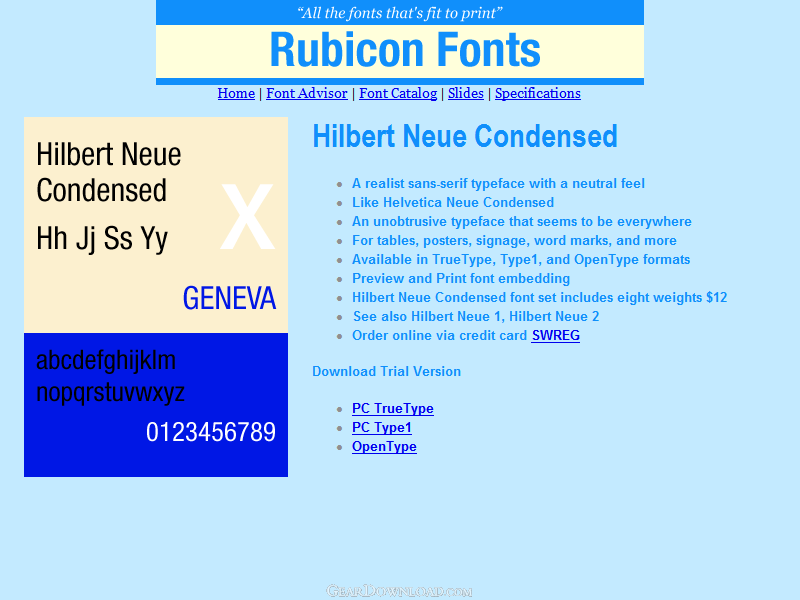
Hilbert Neue Condensed Font TT - Realist sans serif font, neutral feel, like Helvetica Neue Condensed
Condensed realist sans serif font with a neutral feel. Like Helvetica Neue Condensed. An unobtrusive typeface that seems to be everywhere. Fit more text into restricted spaces without losing legibility. Great for tables, posters, signage, and other graphic material. Accurate and hinted, matching font metrics, standard character set, kerning pairs. Professional print quality for inkjet, laser, typesetter to 3500 dpi. Purchasers receive 8 font variants as follows: Light, Light Oblique, Normal, Oblique, Bold, Bold Oblique, Extrabold, Extrabold Oblique.